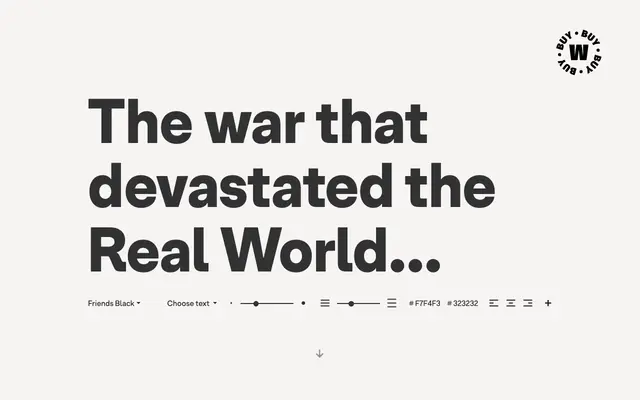
Friends
A 14-style contemporary sans with matching italics, icons and emoji glyphs, pitched at postmodern graphic and editorial work.
Designed by David Súid, Friends spans seven weights from Thin to Black with italic counterparts throughout, plus a suite of icons, emojis, arrows and ligatures. The family positions itself as a visual language system, drawing on emoji and contemporary graphic culture as formal influences. Suited to web design, posters, branding and editorial contexts where a clean, modern sans with expressive supplementary characters is needed.
The specimens and described use cases suggest a clean, contemporary sans-serif with geometric sensibility, designed for postmodern graphic applications including web and editorial work.